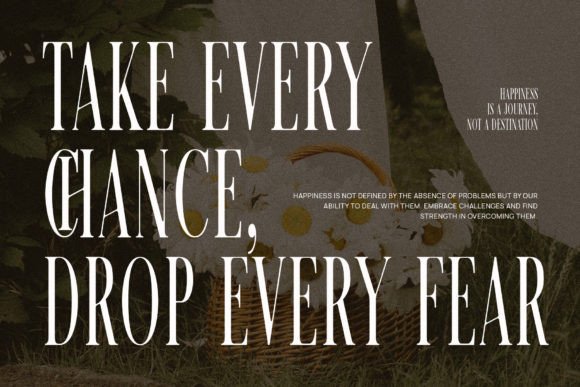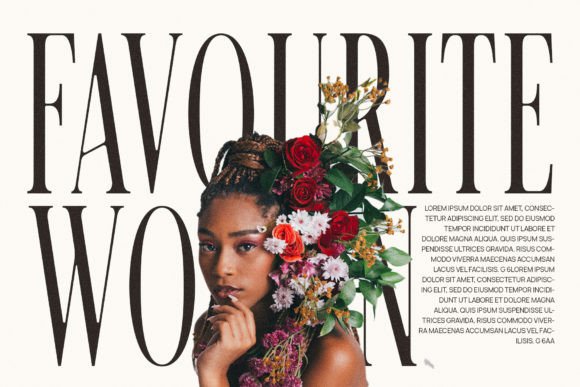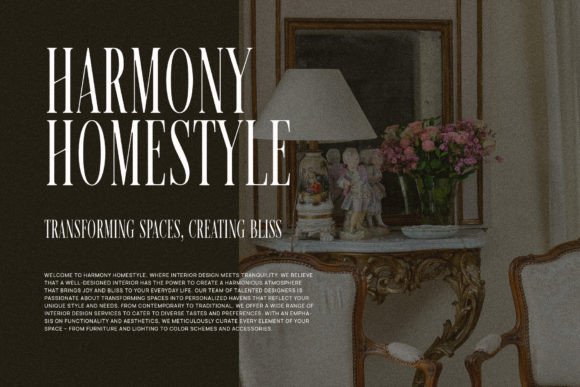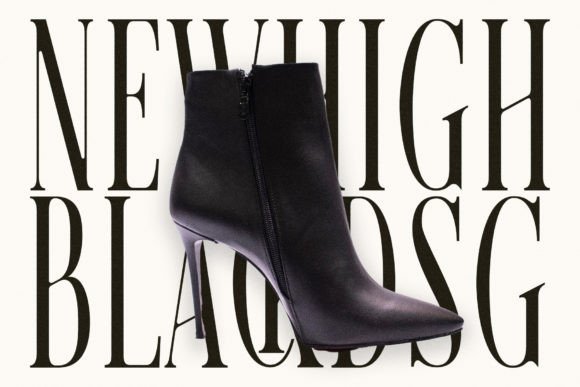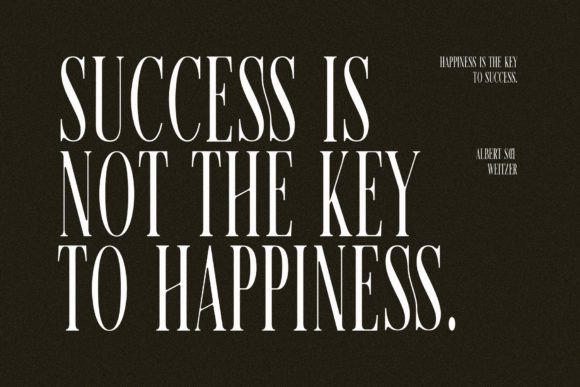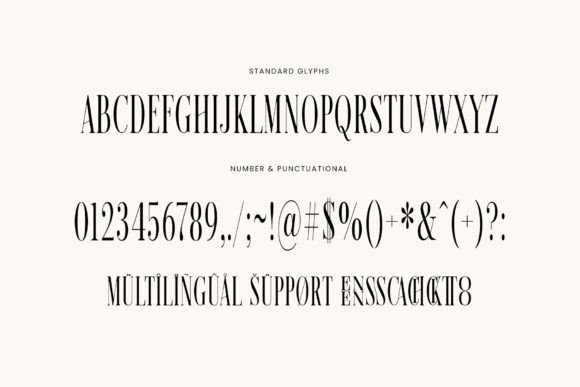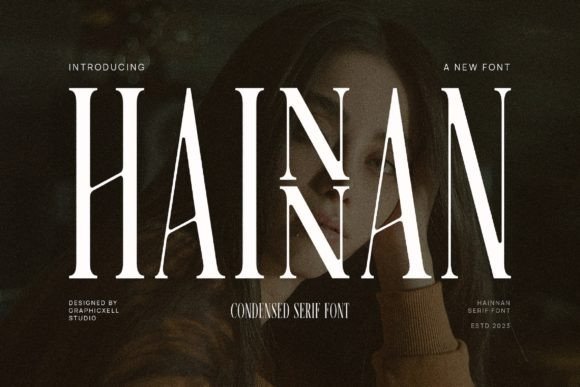
Discover the Elegance of Hainnan Font: Elevate Your Designs with Sophistication
In the realm of typography, the right font can make all the difference in transforming a design from ordinary to extraordinary. For those seeking an elegant serif typeface that exudes class and modernity, the Hainnan Font is an exceptional choice. This versatile font is meticulously crafted to meet a wide array of design needs, including branding projects, logos, wedding designs, social media posts, advertisements, product packaging, product designs, labels, photography, watermarks, invitations, stationery, and more.
The Essence of Hainnan Font
Hainnan Font is not just any typeface; it’s a blend of traditional elegance and contemporary style. Its serif characteristics bring a touch of sophistication and refinement, making it perfect for designs that require a high level of readability and aesthetic appeal. Whether you’re working on a luxury brand’s logo or an intimate wedding invitation, this font ensures that your message is conveyed with elegance and clarity.
One of the standout features of Hainnan Font is its incredible versatility. It’s designed to be adaptable, ensuring that it looks great in various contexts and sizes. Here are some of the areas where Hainnan Font truly shines:
- Branding Projects: Establish your brand’s identity with a font that communicates luxury and professionalism.
- Logos: Create memorable logos that stand out with the unique elegance of Hainnan Font.
- Wedding Designs: Add a touch of romance and sophistication to wedding invitations, banners, and more.
- Social Media Posts: Elevate your social media presence with stylish and readable posts.
- Advertisements: Grab attention with a font that combines modernity and classic appeal.
- Product Packaging and Designs: Make your products stand out on shelves with elegant typography.
- Labels and Photography: Use Hainnan Font for watermarks or photo overlays to add a professional touch.
- Invitations and Stationery: Create beautiful, high-quality stationery and invitations for any occasion.
Hainnan Font comes with PUA (Private Use Area) encoding, a significant advantage for designers. PUA encoding allows easy access to all the glyphs and ligatures, enabling you to fully explore the font’s potential without any hassle. This feature is particularly beneficial for creative professionals who need to work efficiently and deliver high-quality results.
Why Choose Hainnan Font?
With so many fonts available, why should Hainnan Font be your go-to choice? Here are a few compelling reasons:
- Elegance and Modernity: It combines the best of both worlds, offering a timeless yet contemporary look.
- High Readability: Ensures your message is easily readable, making it perfect for both digital and print designs.
- Versatility: Suitable for a wide range of projects, from personal to professional.
- User-Friendly: PUA encoding makes it easy to use, even for those with basic design knowledge.
In conclusion, Hainnan Font is a remarkable typeface that brings together elegance, modernity, and versatility. Whether you’re a professional designer or a crafting enthusiast, this font is sure to elevate your projects to new heights. With its high readability, stylish appearance, and ease of use, Hainnan Font is an invaluable asset in your design toolkit. Explore the possibilities of Hainnan Font today and discover how it can transform your designs into works of art.